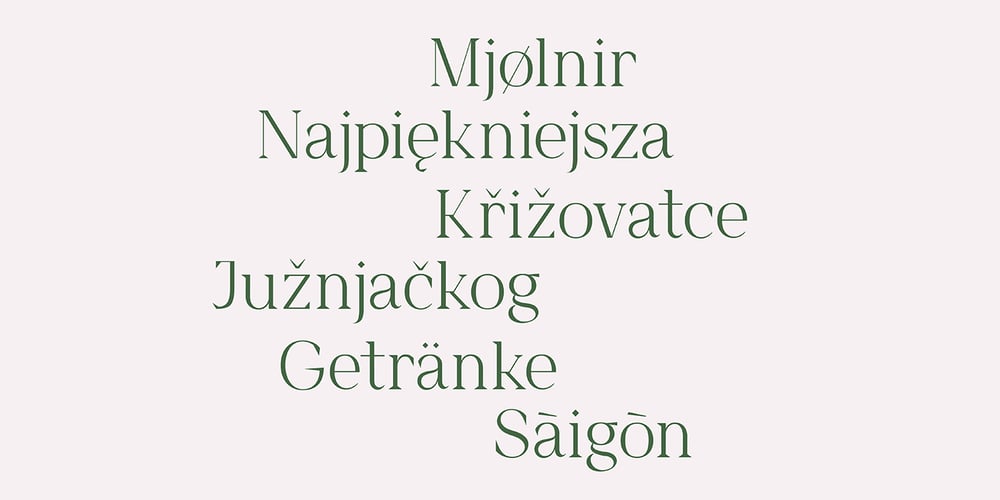
HV Feliz en Vista Font Family was designed by Max Duy T. and published by Harmonais Visual. HV Feliz en Vista contains 3 styles and family package options. Feliz en Vista – a modern serif, display typeface with beautiful uppercase lettering and a touch of fashionable look. You will be pleased to use many options of alternates and ligatures, perfectly suitable for creating nice, fashionable, lifestyle design such as logos, title and wedding paper and others. To generate all ligature and alternative styles, please open Adobe Illustrator – Type – Glyphs.